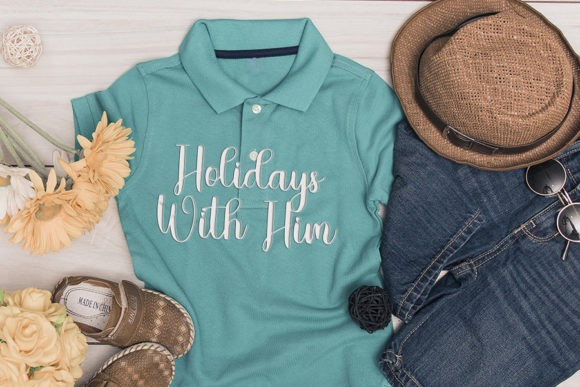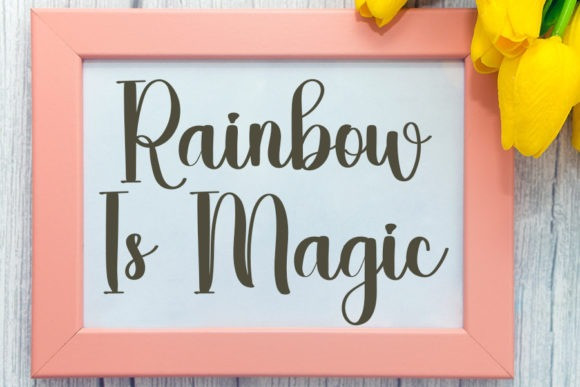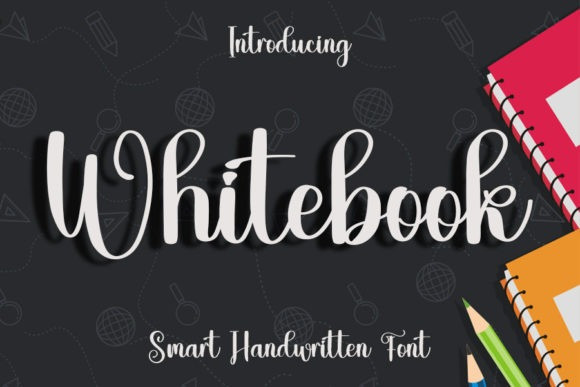
Whitebook Font
Whitebook Script Font is a sweet and delicate handwritten font. Dainty and joyful, this font will be ideal for writing wedding invitations, cards or any other design that may need a romantic, personalized touch!